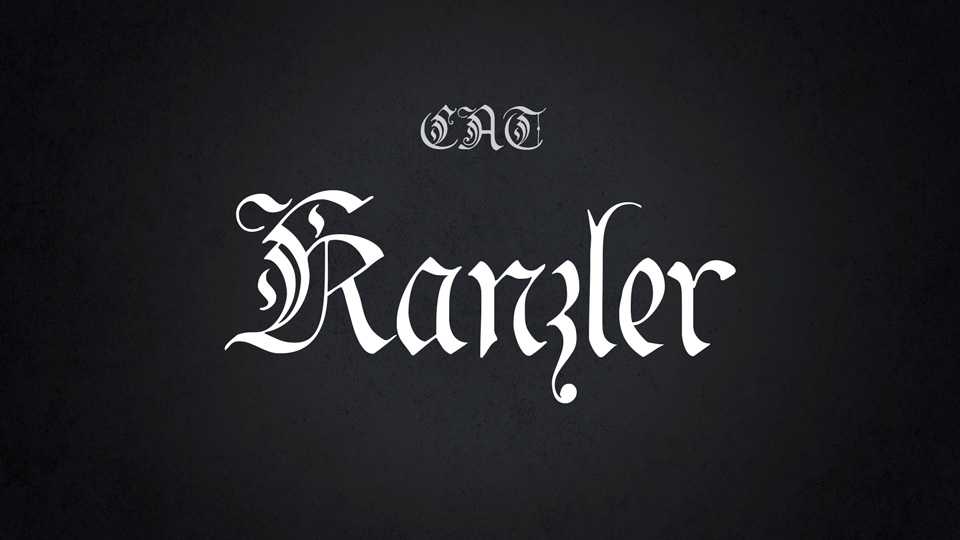
Download Kanzler font, a blackletter typeface with decorative initials and a complete set of ligatures. Kanzler is a calligraphy font of its epoch which inspires to create vintage-looking designs like signs, cards, titles and more.